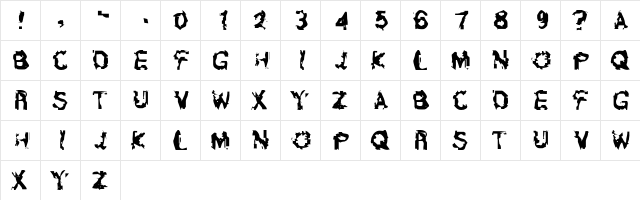
Agressiva Regular
Design Context for Agressiva Typeface
Agressiva is a composed and adaptable typeface that performs quietly and consistently across a wide range of design contexts.